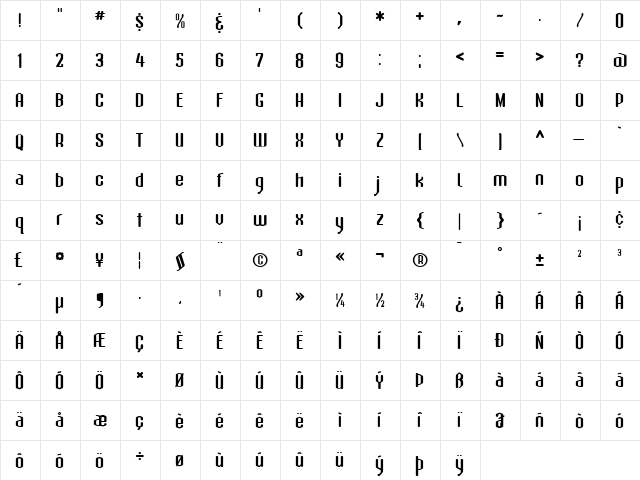
AtomicSansICG Bold
Design Context for AtomicSansICG Typeface
AtomicSansICG offers clean, dependable letterforms without strong stylistic allegiance, making it a practical choice for designers who need flexibility. Its bold stroke weight gives it real presence on the page.
Pro Tip: Pair AtomicSansICG with a font of contrasting weight or personality to build a more expressive typographic hierarchy.